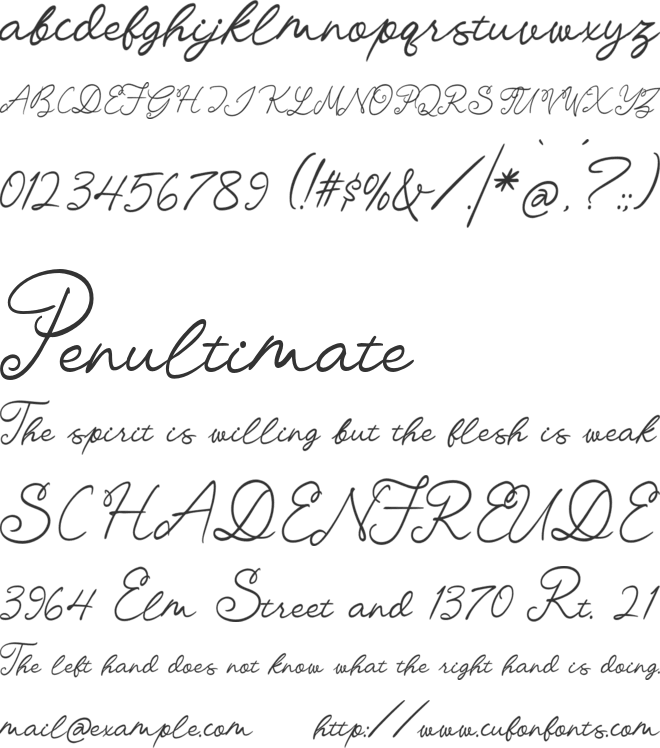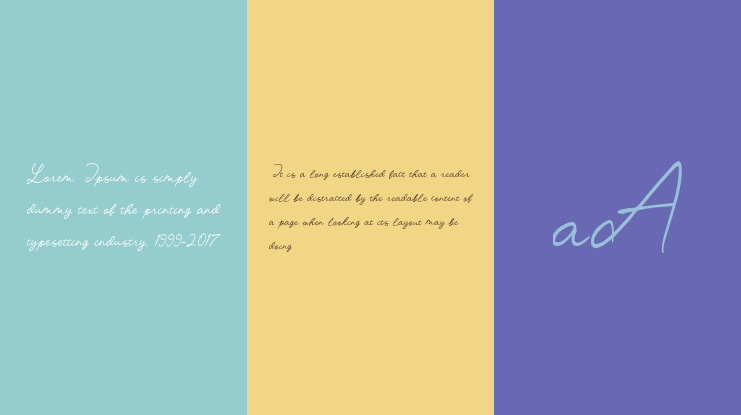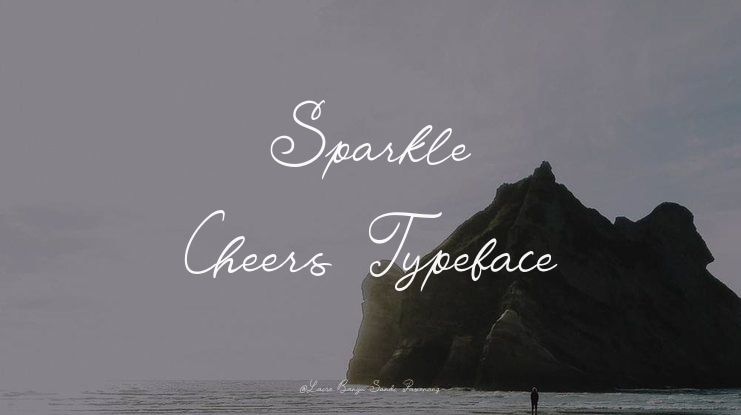
Laire Banyu Sandi Pawenang
Sparkle Cheers is a whimsical handwritten script font that adds magic
and joy to your designs. With smooth strokes, charming curves, and
tons of alternates, it offers endless creative possibilities. Available in
Regular and Bold, it’s perfect for invitations, branding, social media,
and more. Whether for casual lettering or bold headlines, Sparkle
Cheers makes your words shine with personality, turning every project
into something fun, lively, and elegant.